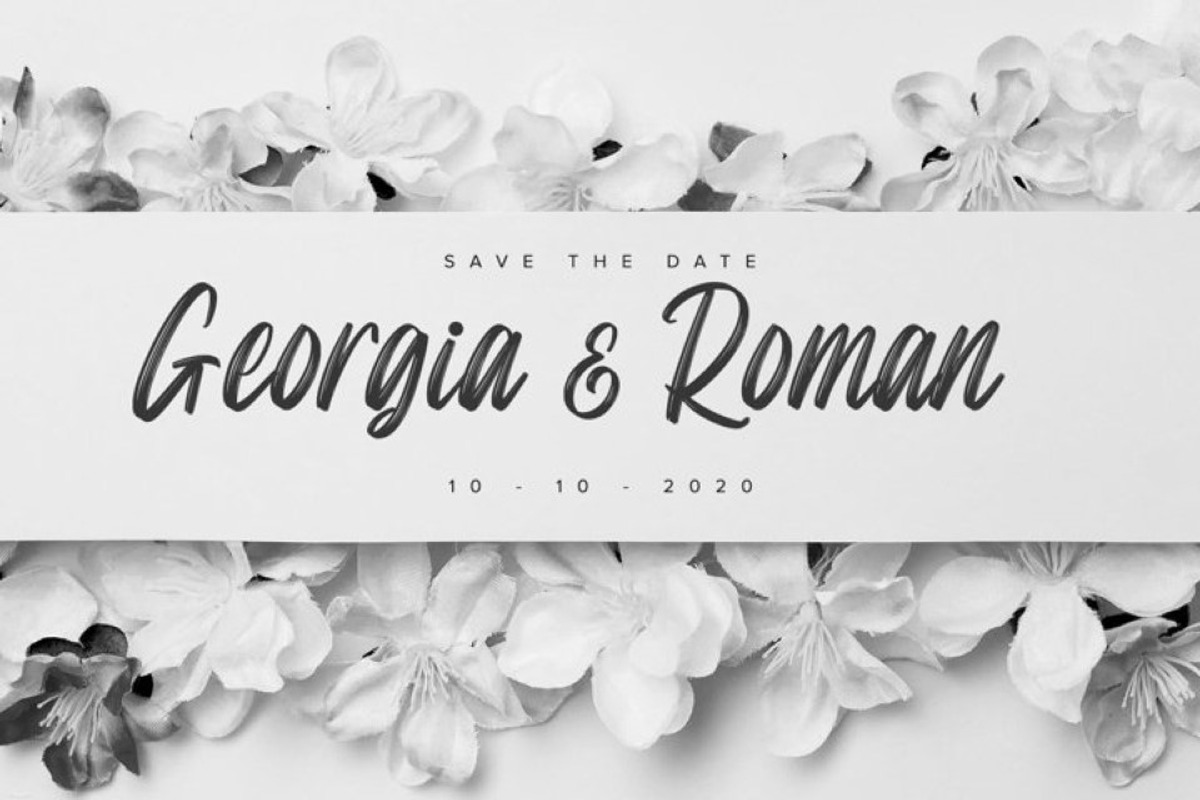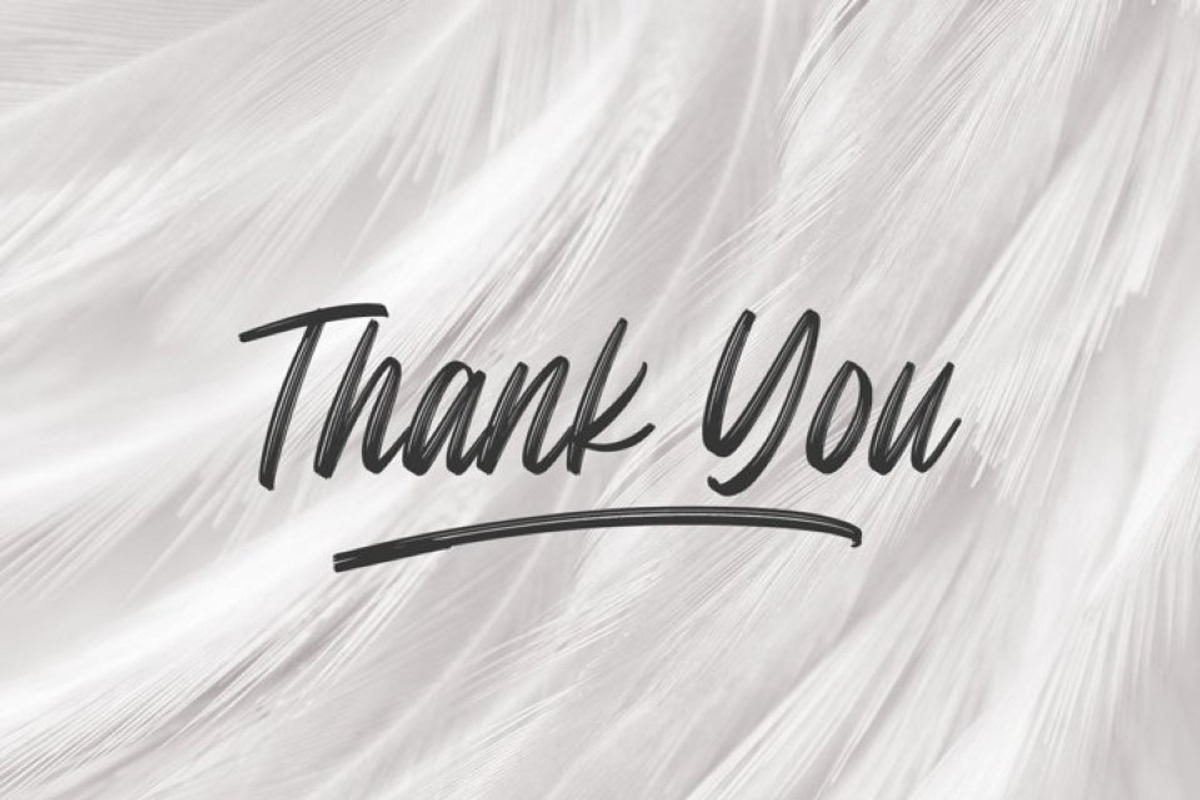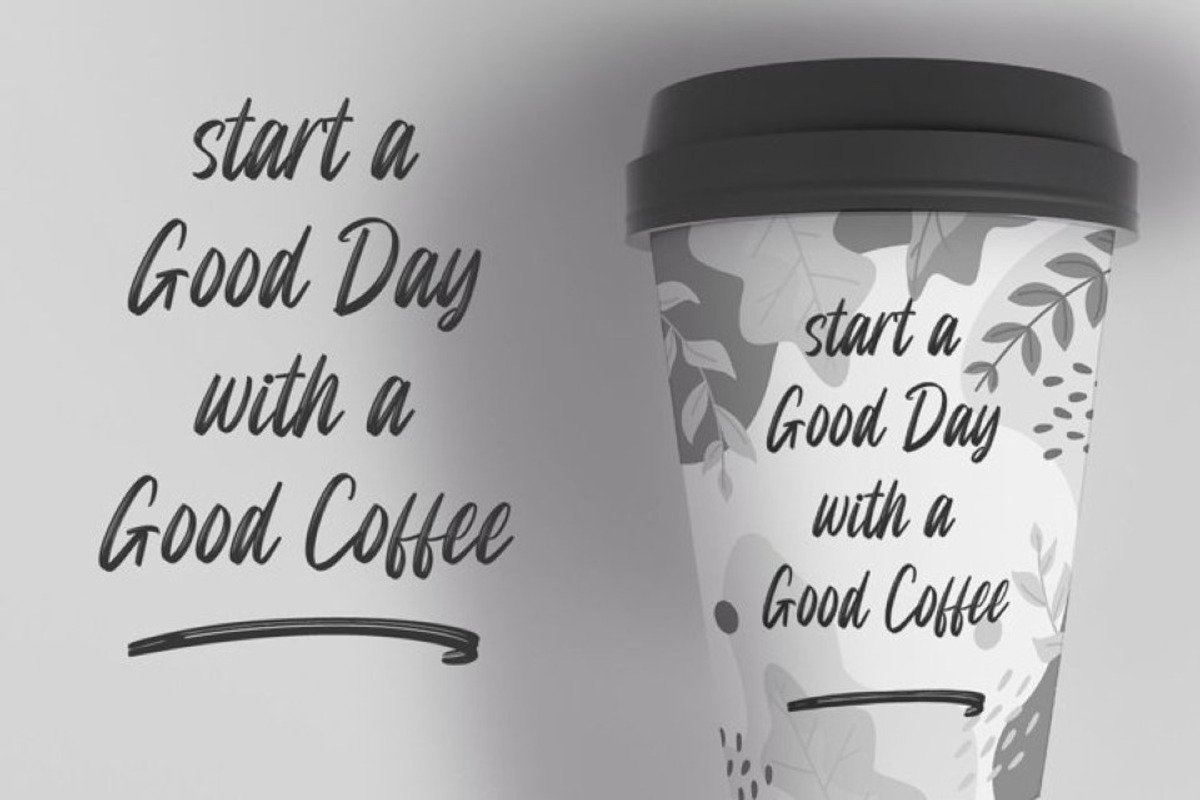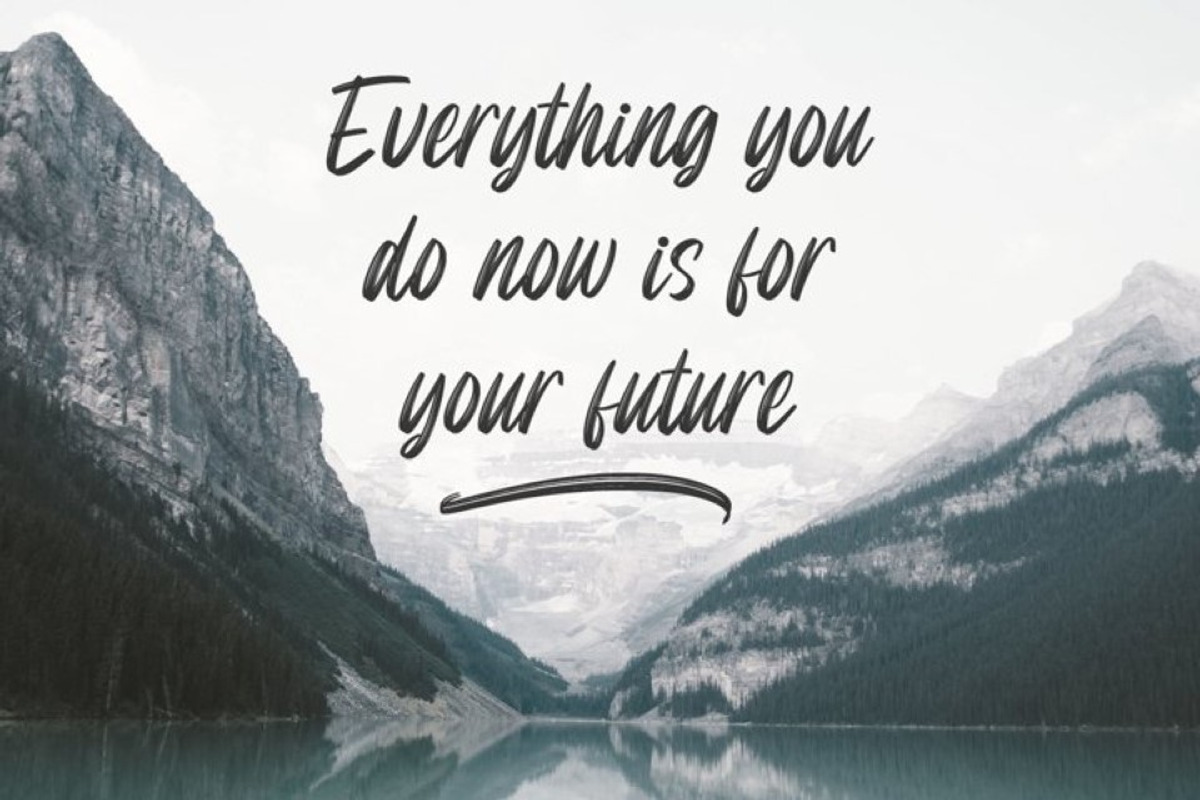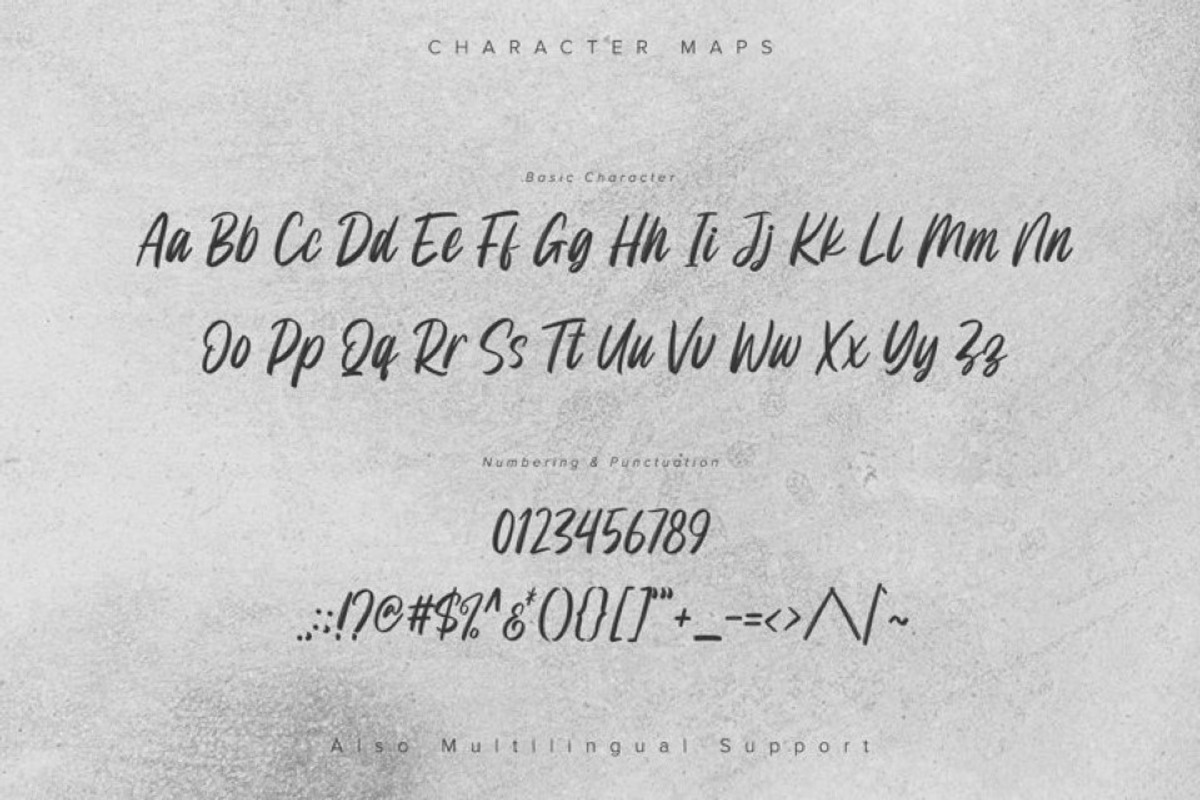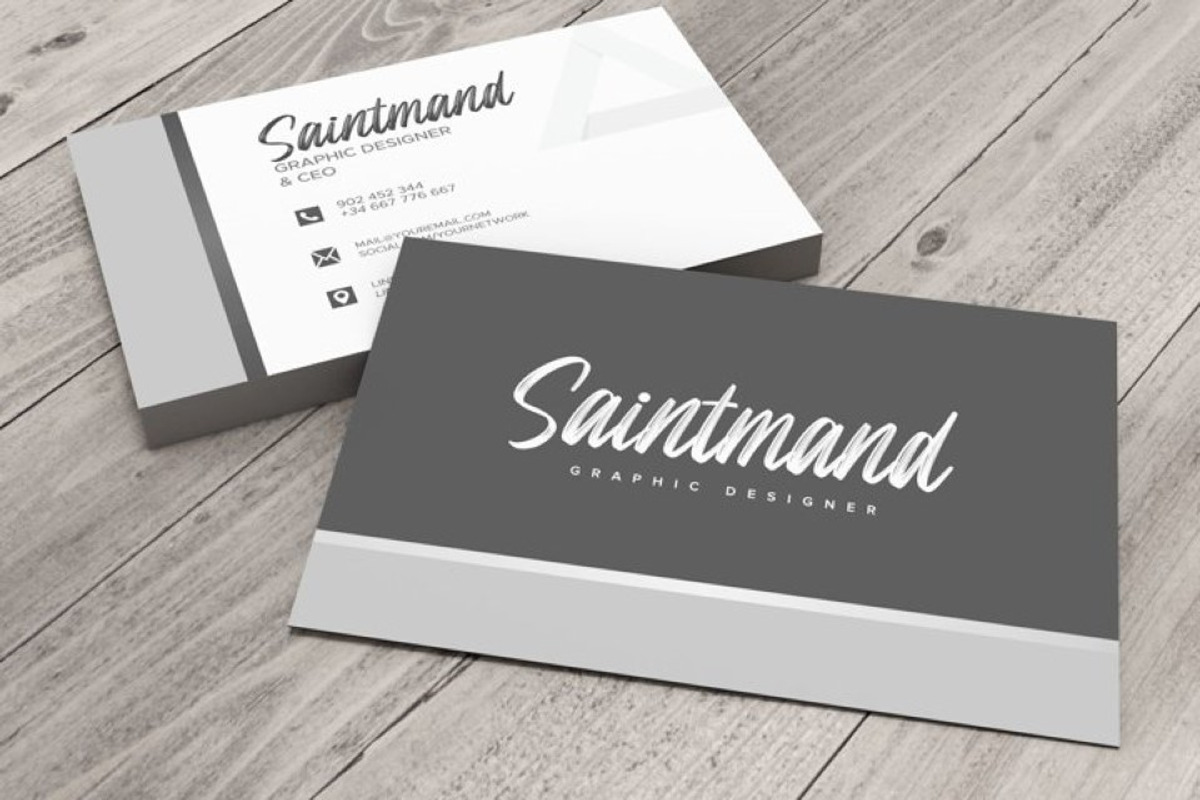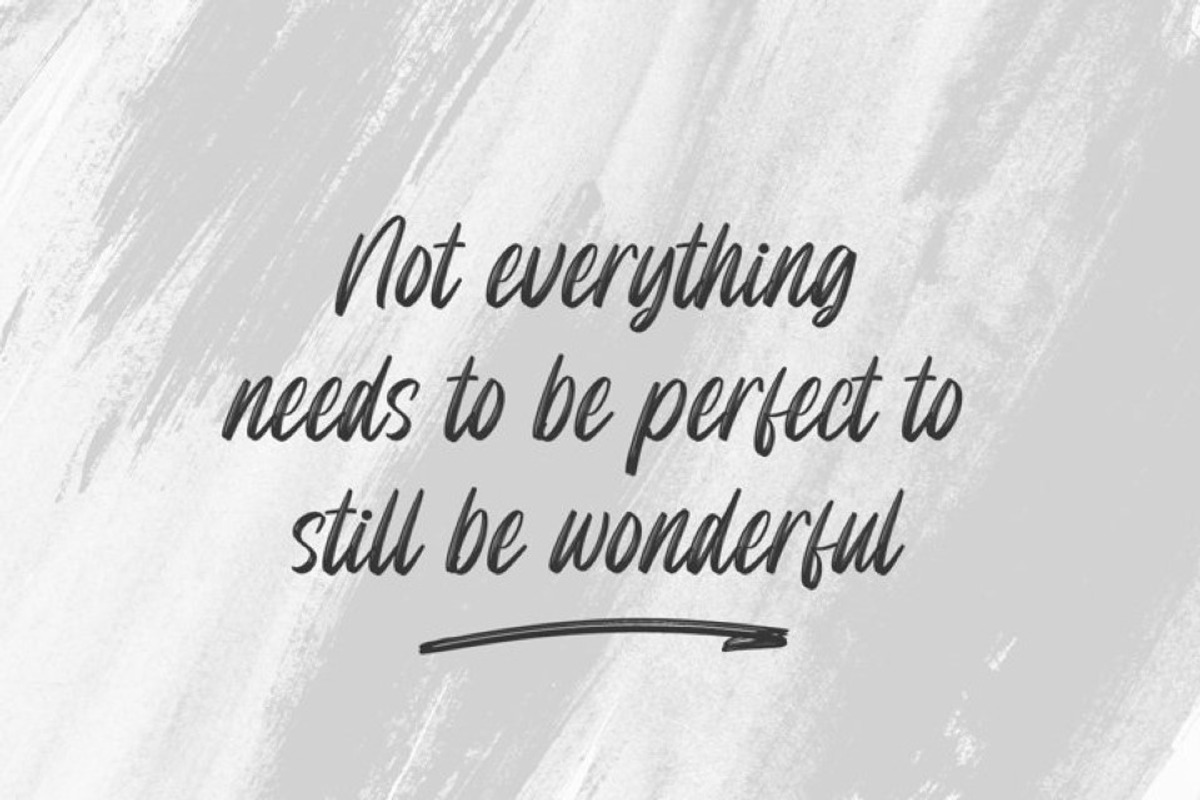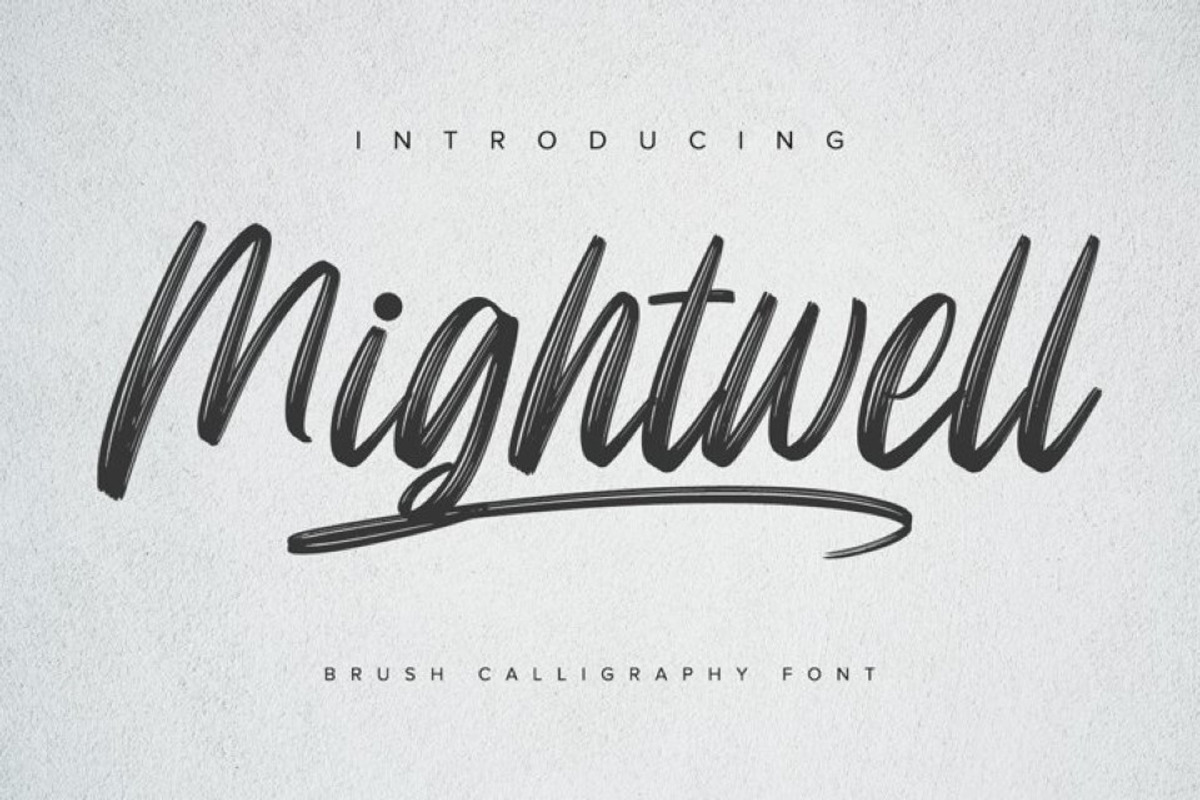
Mightwell
Mightwell is a modern Brush font. With a classy and natural handwritten style, it brings a classy and chic typeface. Well suited to titles, invitations, poster designs, branding, quotes, logos, and many more.
- Beautiful Ligatures